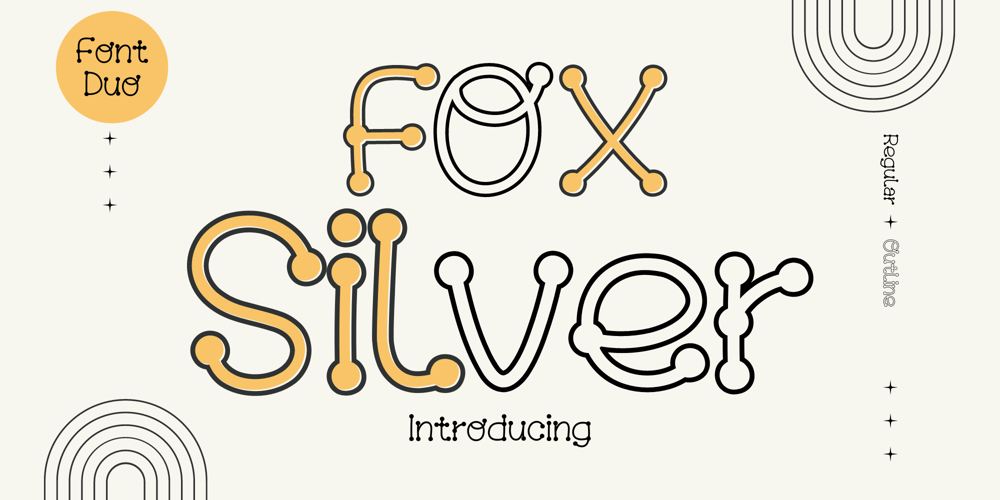
Fox Silver Outline Font Family was designed by Rattana Rattanawan and published by Fox7. Fox Silver Outline contains 2 styles and family package options. Fox Silver is a cool, fun, and Decorative Handwritten font Duo. No matter the topic, this font will be an incredible asset to your fonts’ library, as it has the potential to elevate any creation. Its cheerful vibe is suitable for kid-friendly designs, posters, wall art, stickers, Halloween, or festival valentines, Mother’s Day, and more!